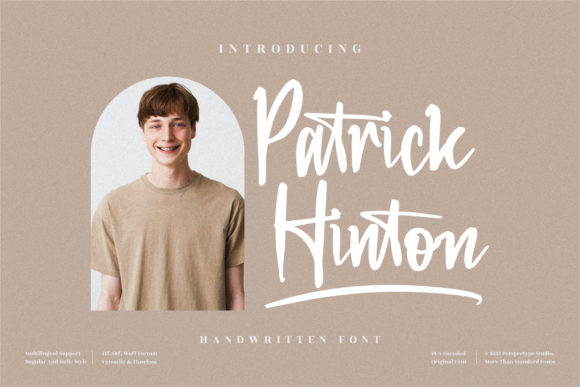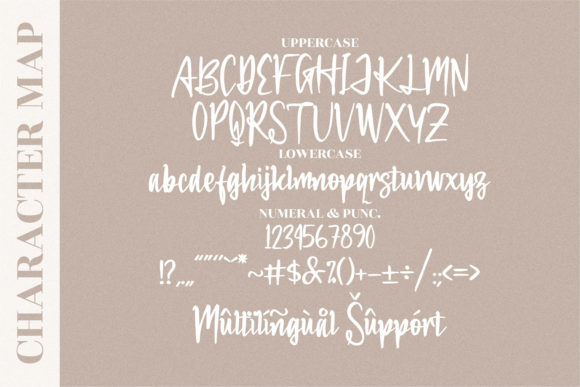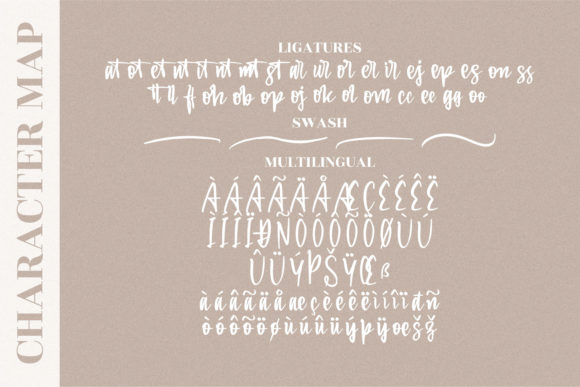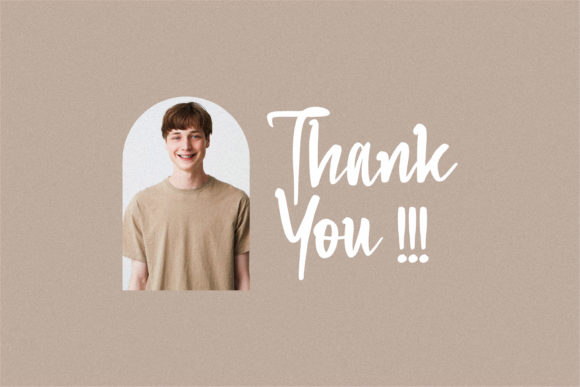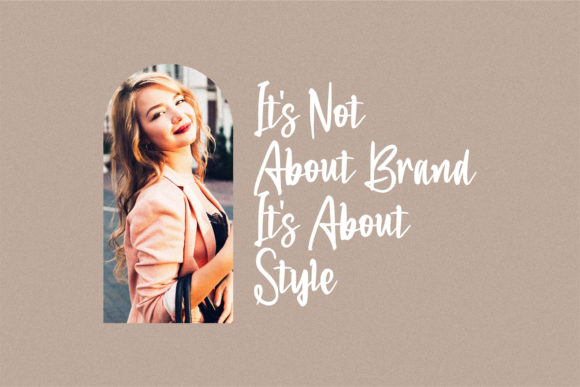
About Patrick Hinton Font
Patrick Hinton is an exquisite handwritten font, masterfully designed to become a true favorite. It maintains its classy calligraphic influences while feeling contemporary and fresh. This font is PUA encoded which means you can access all of the glyphs and swashes with ease!